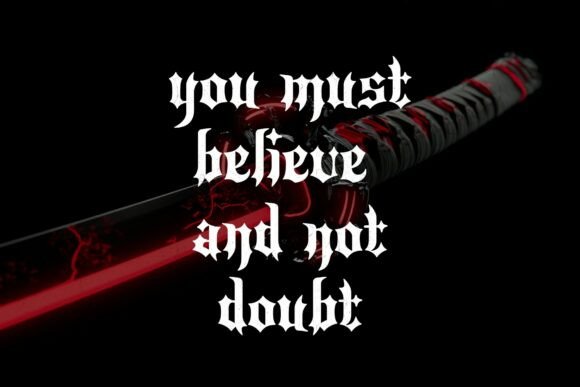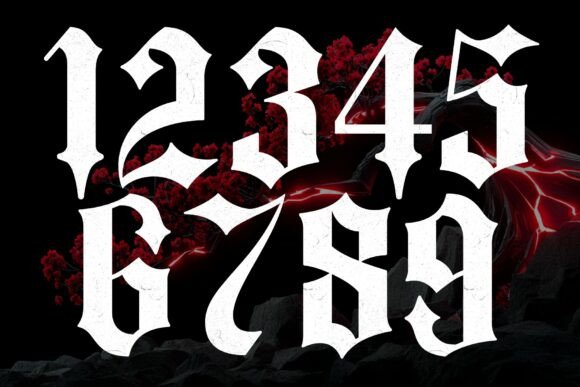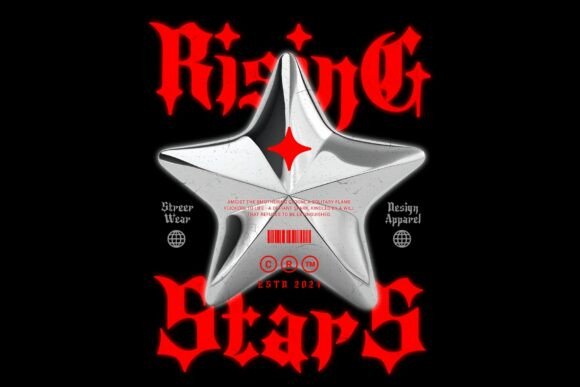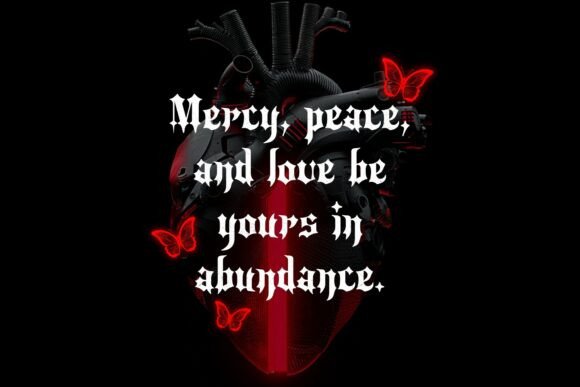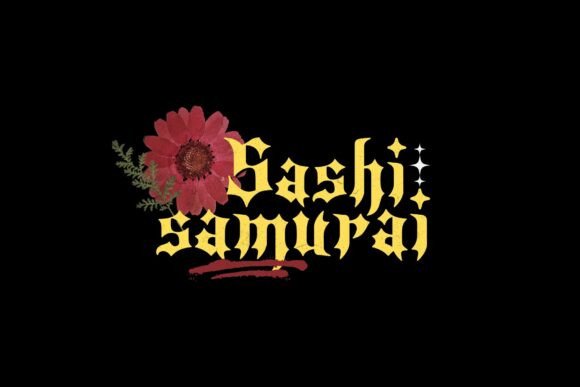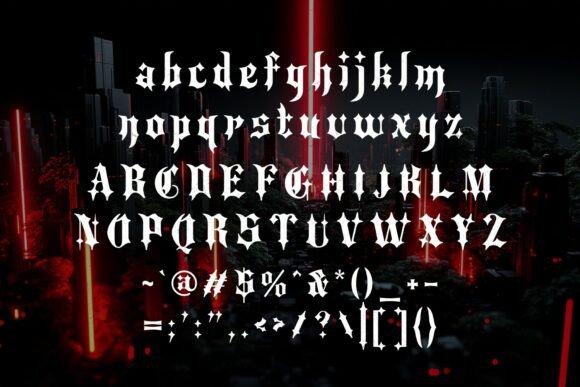
Crimson Sigil Font: Unleash the Power of Gothic Blackletter
Are you a designer, craft, or enthusiast looking for a typeface that exudes mystery, power, and elegance? Look no further than the Crimson Sigil Font, a gothic blackletter typeface that will transport your designs to a world of ancient mysticism and medieval grandeur.
The Essence of Crimson Sigil
Crimson Sigil is more than just a font – it’s an experience. Forged in the fires of ancient mysticism and medieval power, this typeface is designed to command attention and evoke a sense of drama and intensity. With its razor-sharp serifs, dark strokes, and unrelenting elegance, Crimson Sigil is the perfect choice for designers who want to create a lasting impression.
Inspired by the Past
Crimson Sigil draws inspiration from the sacred grimoires, enchanted manuscripts, and old-world calligraphy of medieval times. Every letterform is carefully crafted to echo the grandeur and mystique of these ancient texts, making it an ideal choice for designers who want to create a sense of history and tradition in their work.
Versatility and Impact
Whether you’re designing album covers, fantasy novels, branding for dark artisan goods, or simply want to summon the aesthetic of medieval times, Crimson Sigil delivers an unmistakable visual impact. Its striking letterforms are built to captivate, beautiful yet bold, ornamental yet legible, fierce yet refined. This font is perfect for a wide range of design applications, from:
- Music and film titles
- Fantasy and horror fiction
- Dark and alternative branding
- Historical and cultural projects
Design Features and Benefits
Crimson Sigil boasts a range of design features that make it a versatile and effective typeface. Some of its key benefits include:
- Razor-sharp serifs and dark strokes for added drama and intensity
- Unrelenting elegance and refinement
- Beautifully crafted letterforms that are both ornamental and legible
- Fierce yet refined, making it perfect for a wide range of design applications
Why Choose Crimson Sigil?
So why choose Crimson Sigil over other typefaces? Here are just a few reasons why designers and crafters are falling in love with this gothic blackletter font:
- Unique and distinctive design that’s sure to stand out
- Highly versatile and adaptable to a wide range of design applications
- Easy to read and legible, even at small sizes
- Perfect for designers who want to create a sense of history and tradition in their work
In conclusion, Crimson Sigil Font is a powerful and elegant typeface that’s perfect for designers and crafters who want to add a touch of ancient mysticism and medieval grandeur to their work. With its razor-sharp serifs, dark strokes, and unrelenting elegance, this font is sure to command attention and evoke a sense of drama and intensity. Whether you’re designing album covers, fantasy novels, or branding for dark artisan goods, Crimson Sigil delivers an unmistakable visual impact that’s sure to leave a lasting impression.
Let Your Next Project Bleed with Brilliance